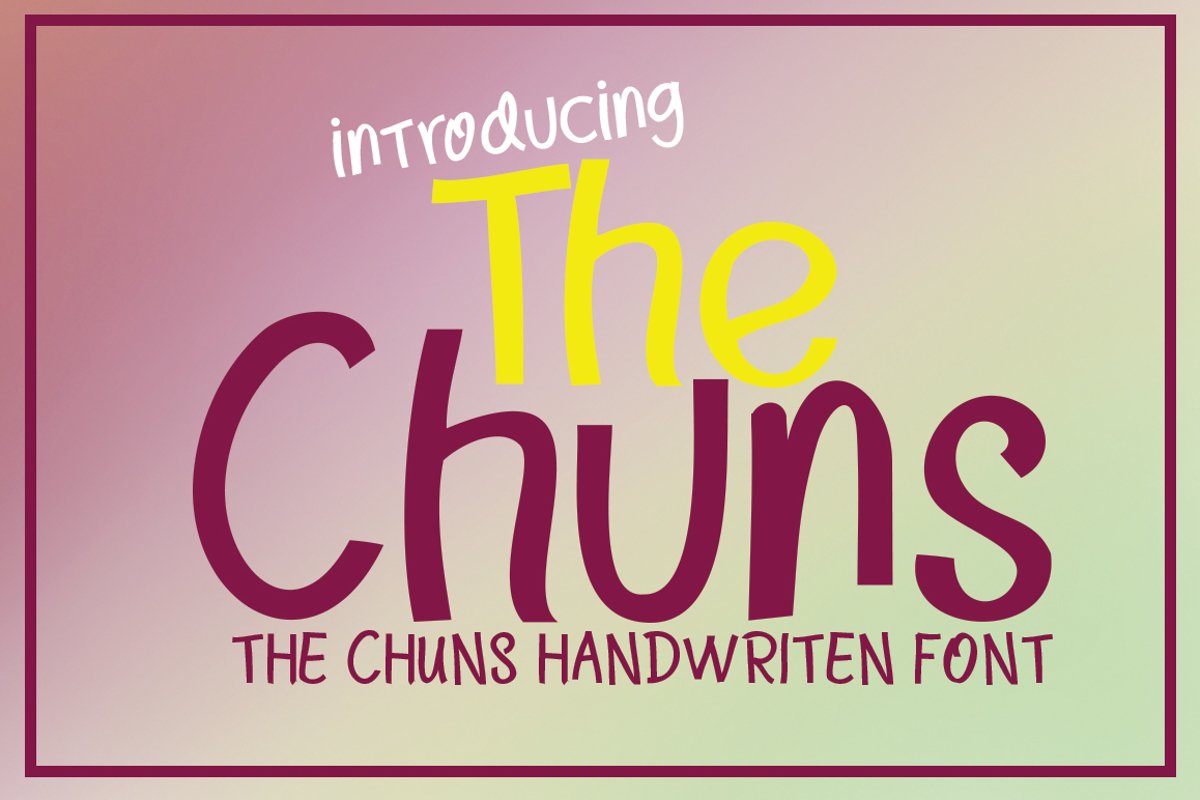
The Chuns
The Chuns This font was designed by handwriting OR handmade
Languages supported: Breton, Catalan, Czech,
Danish, Estonian,French, German, Hungarian, Icelandic, Italian, Romanian,
Scottish Gaelic, Slovak, Latvian, Lithuanian, Norwegian, English, Finnish,
Polish, Portuguese, Slovenian, Spanish, Swedish, Turkish, Welsh. Basically, all
european languages that are based on latin alphabet.